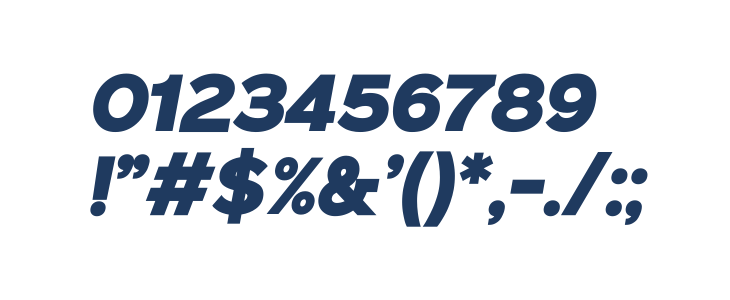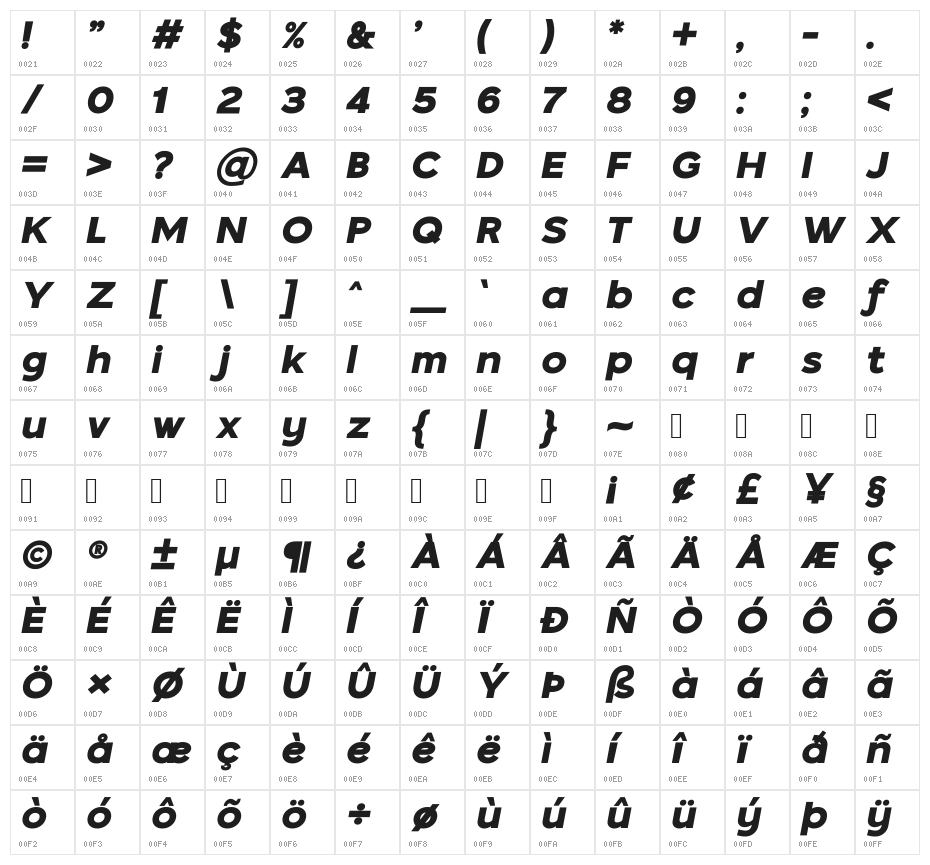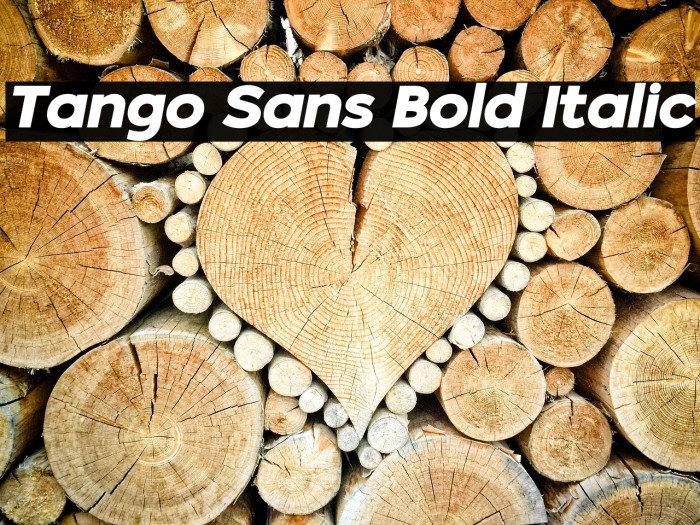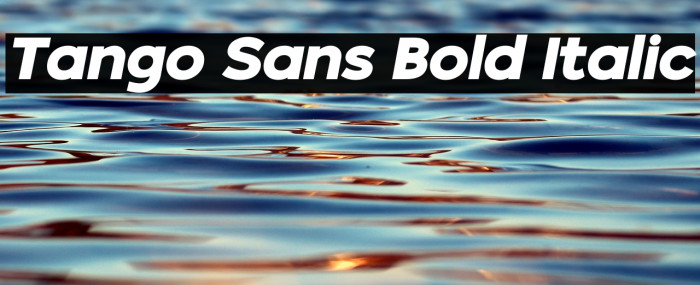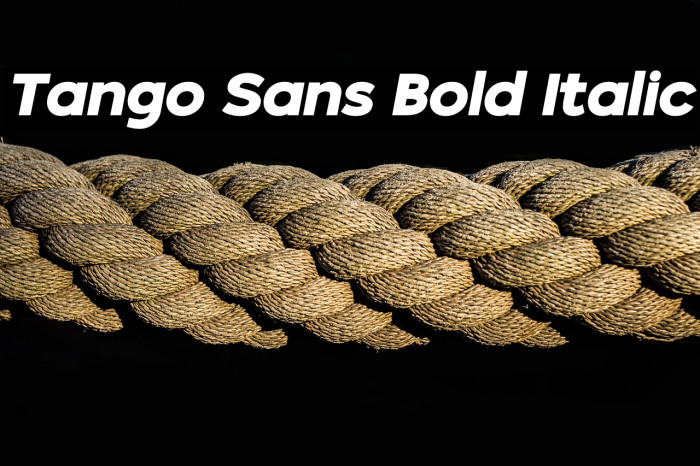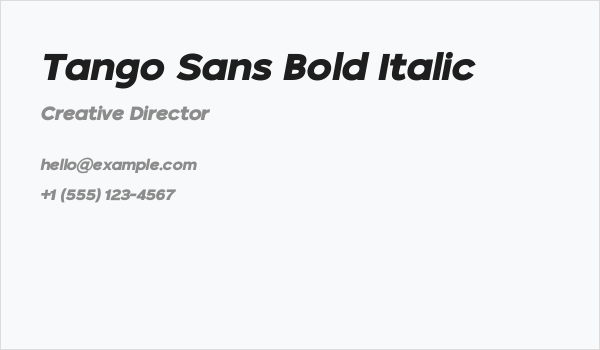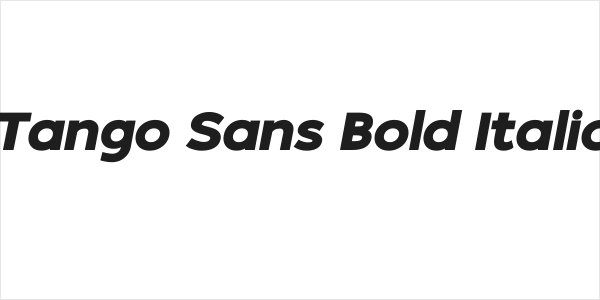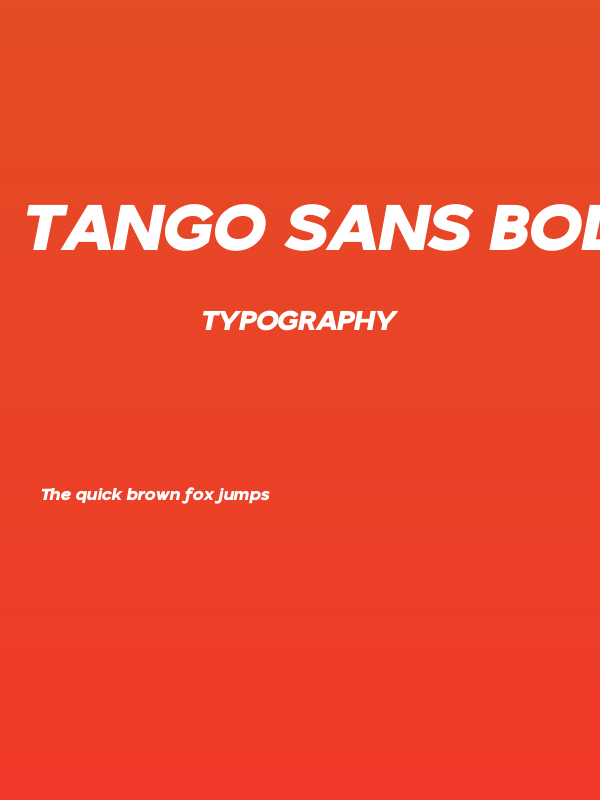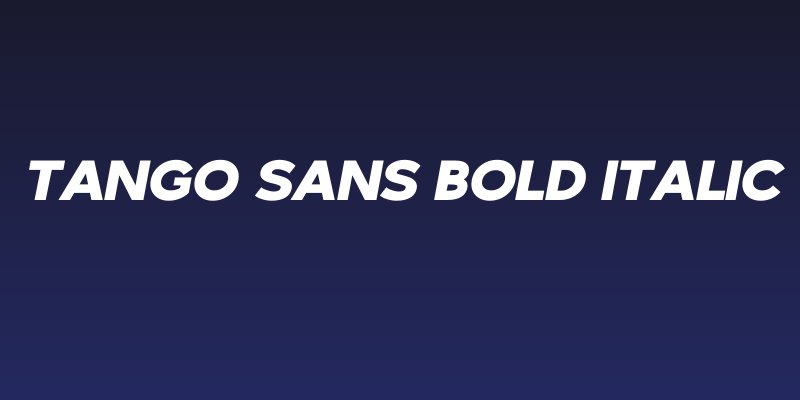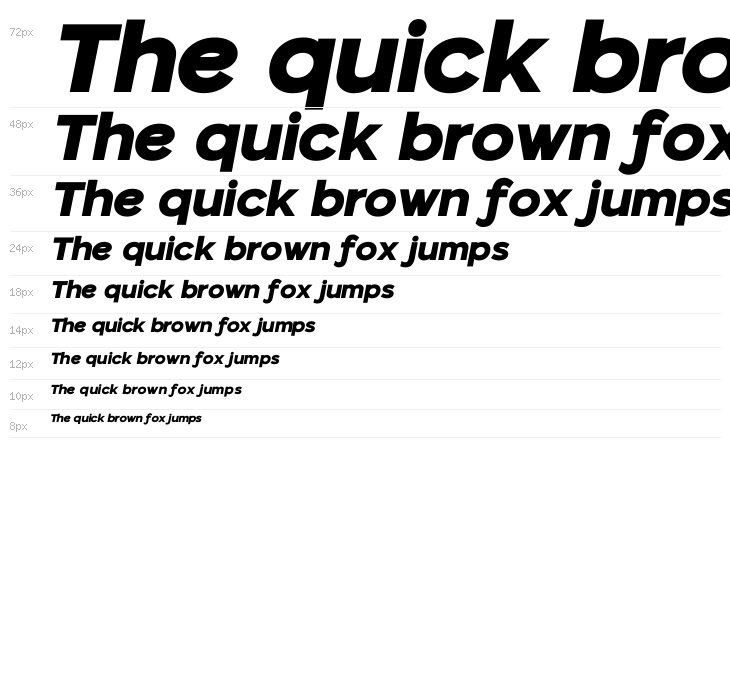
Tango Sans Bold Italic Font
Tango Sans Bold Italic Description
This font features a bold and italicized style, characterized by its strong presence and dynamic slant. The letters are sans-serif, offering a clean and modern look with smooth curves and sharp edges. The uppercase and lowercase letters maintain a consistent weight, providing a uniform appearance across all characters. The numbers and special characters follow the same bold and italicized design, ensuring cohesion throughout. This font's boldness and slant make it ideal for attention-grabbing headlines and impactful designs.
| Use Case | Headlines, Logos, Advertising |
| Proposed Projects | Ideal for branding, advertising, headlines, and any project requiring a strong visual impact. |